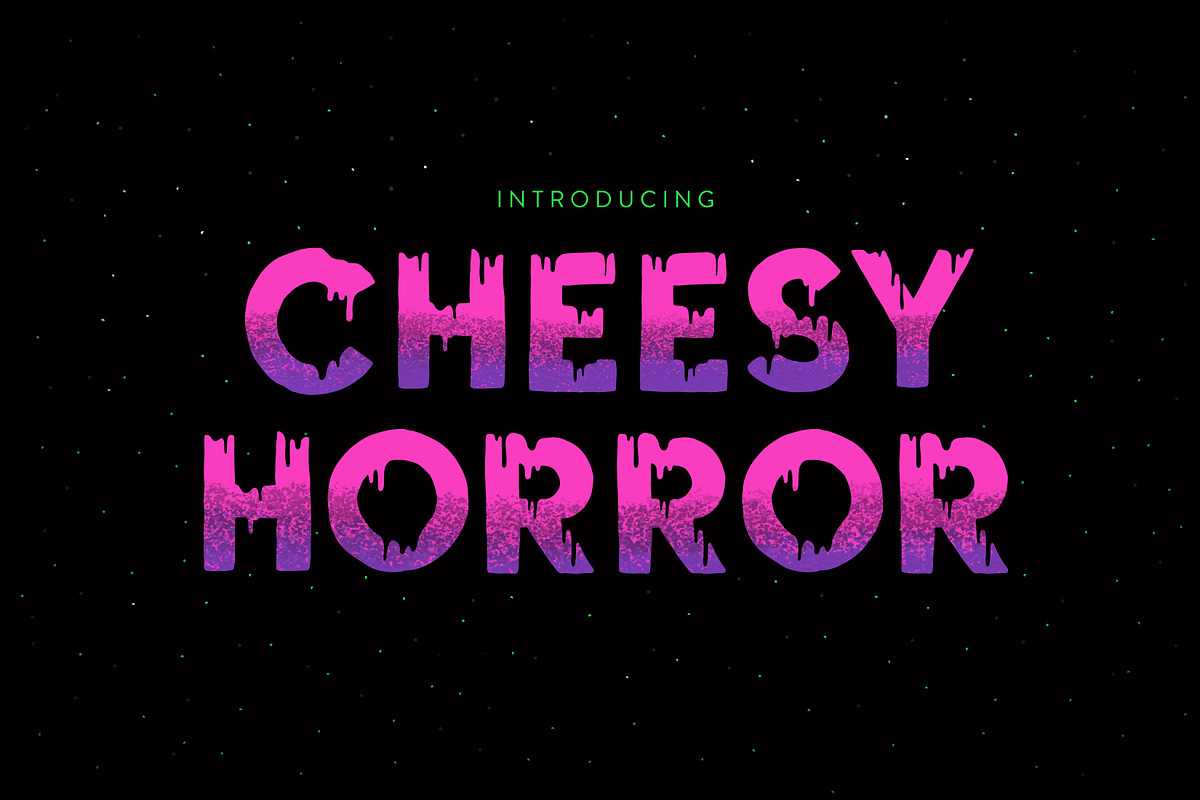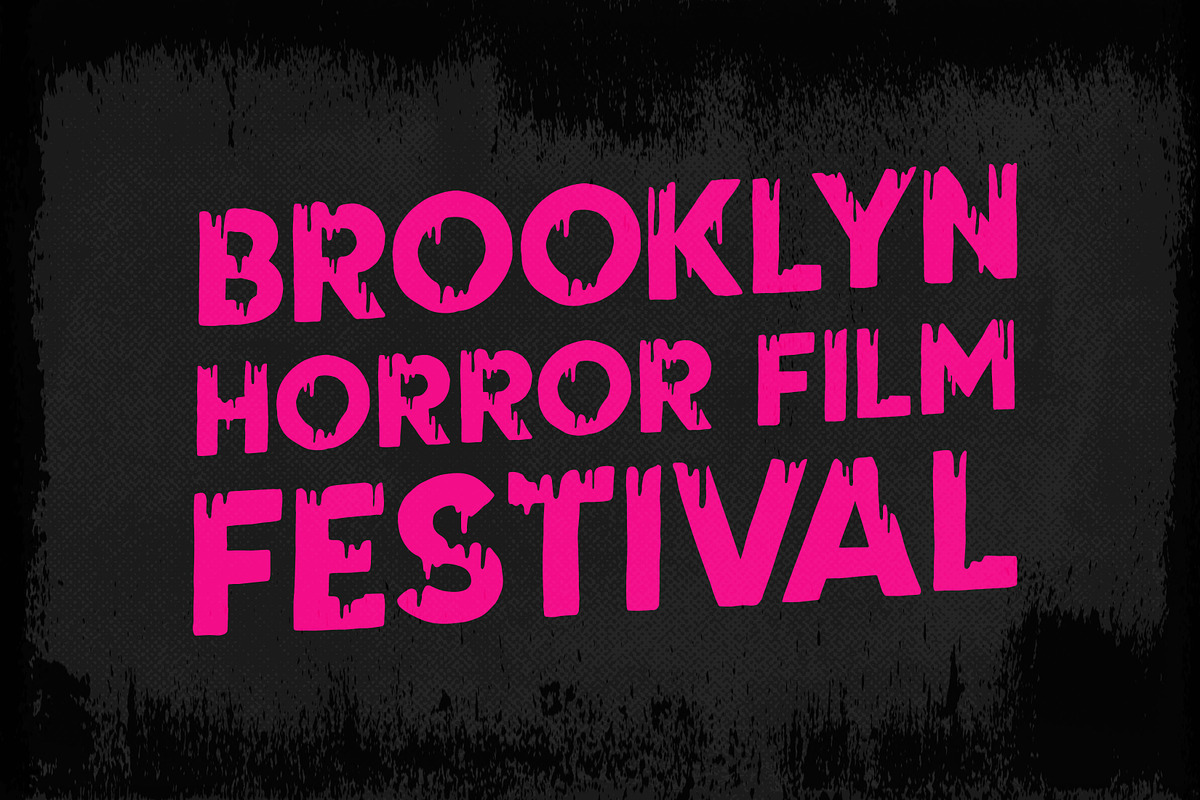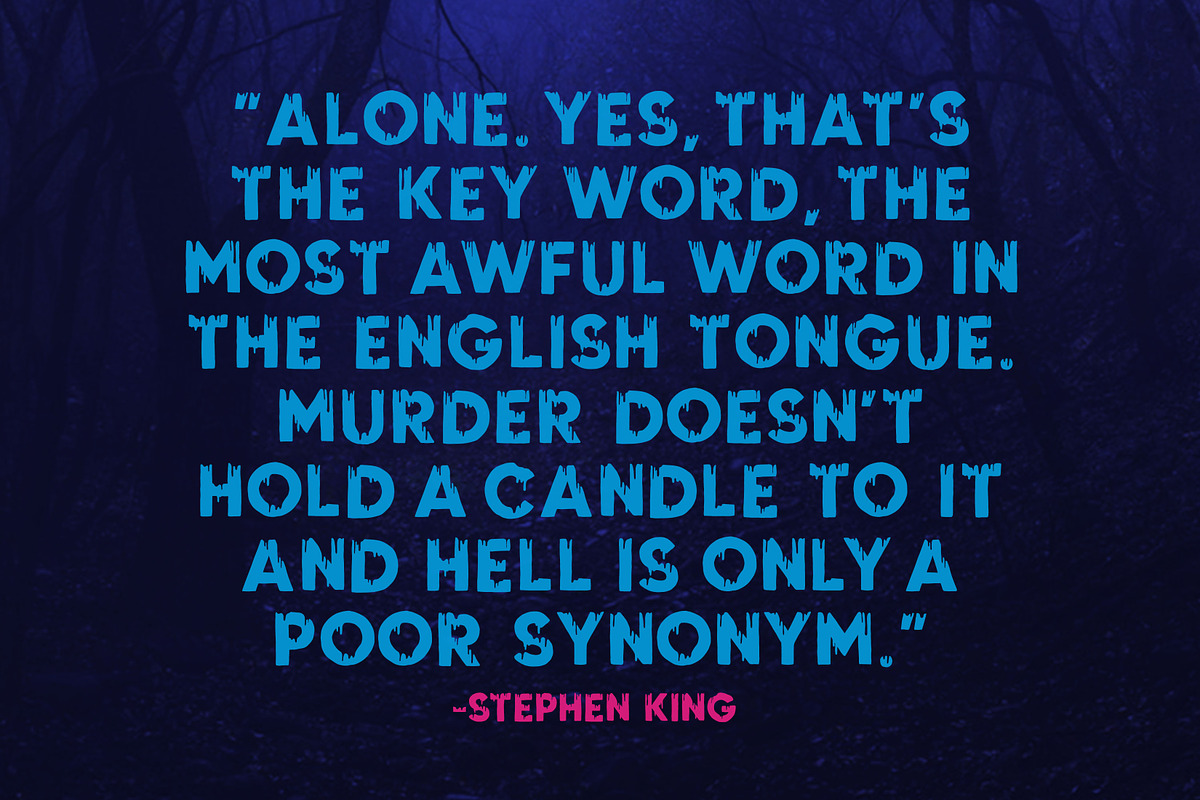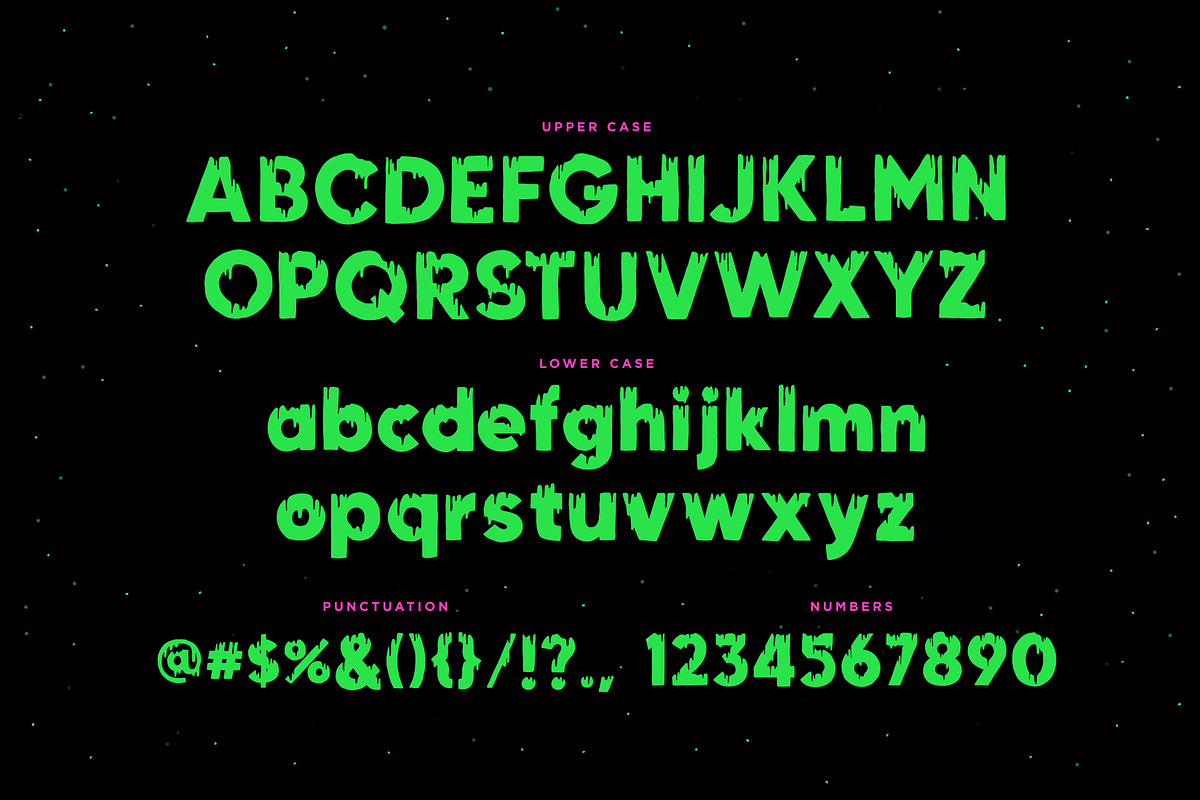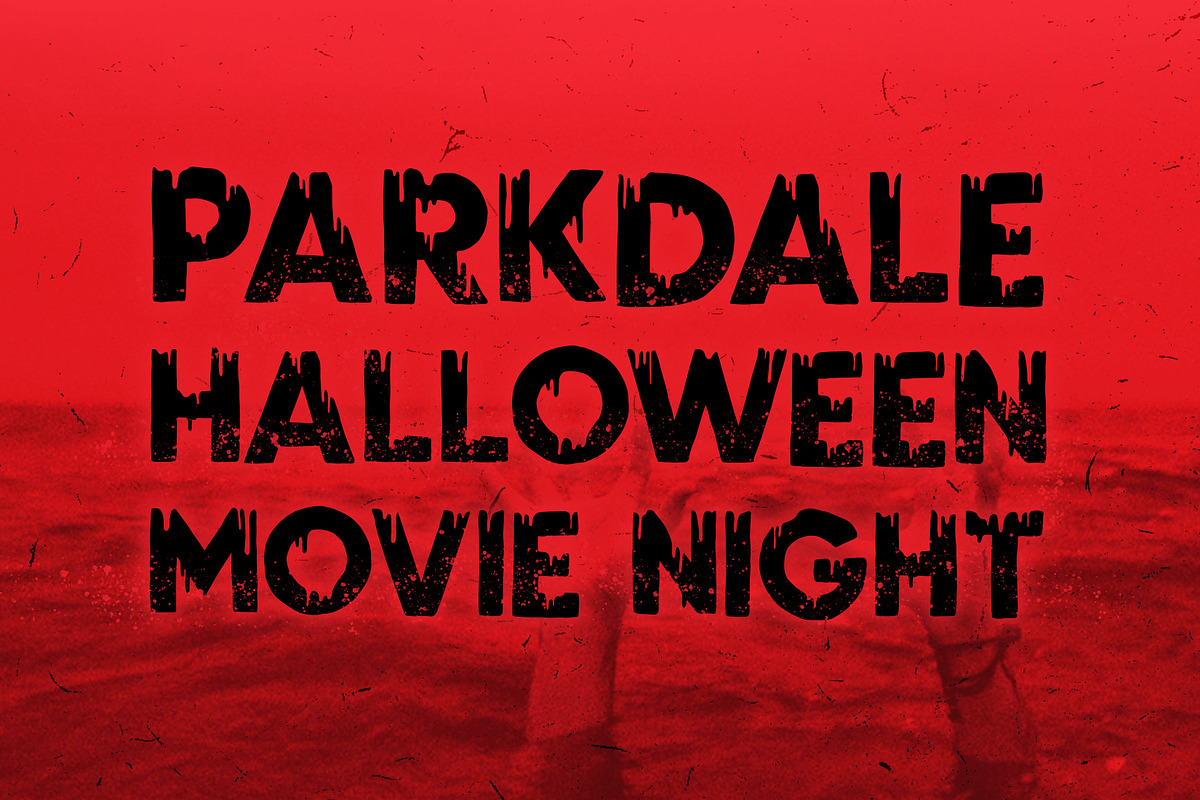
Cheesy Horror Font
Chessy Horror is a fun font with a touch of spooky flavour to it. Great for party or movie posters, graphic novels and comics.
Cheesy Horror Font by 3ora fits naturally into Branding, posters, packaging, typography.